Top 20 Popular Cursive Fonts: Best Cursive Fonts on the Web
In other cultures of Cyrillic and Arabic, these letters tend to be joined towards the ends in certain situations and may have undulating strokes that depict a word or a statement. The word cursive comes from the French word “cursif” and the Medieval Latin word “cursivus” which means “running.”
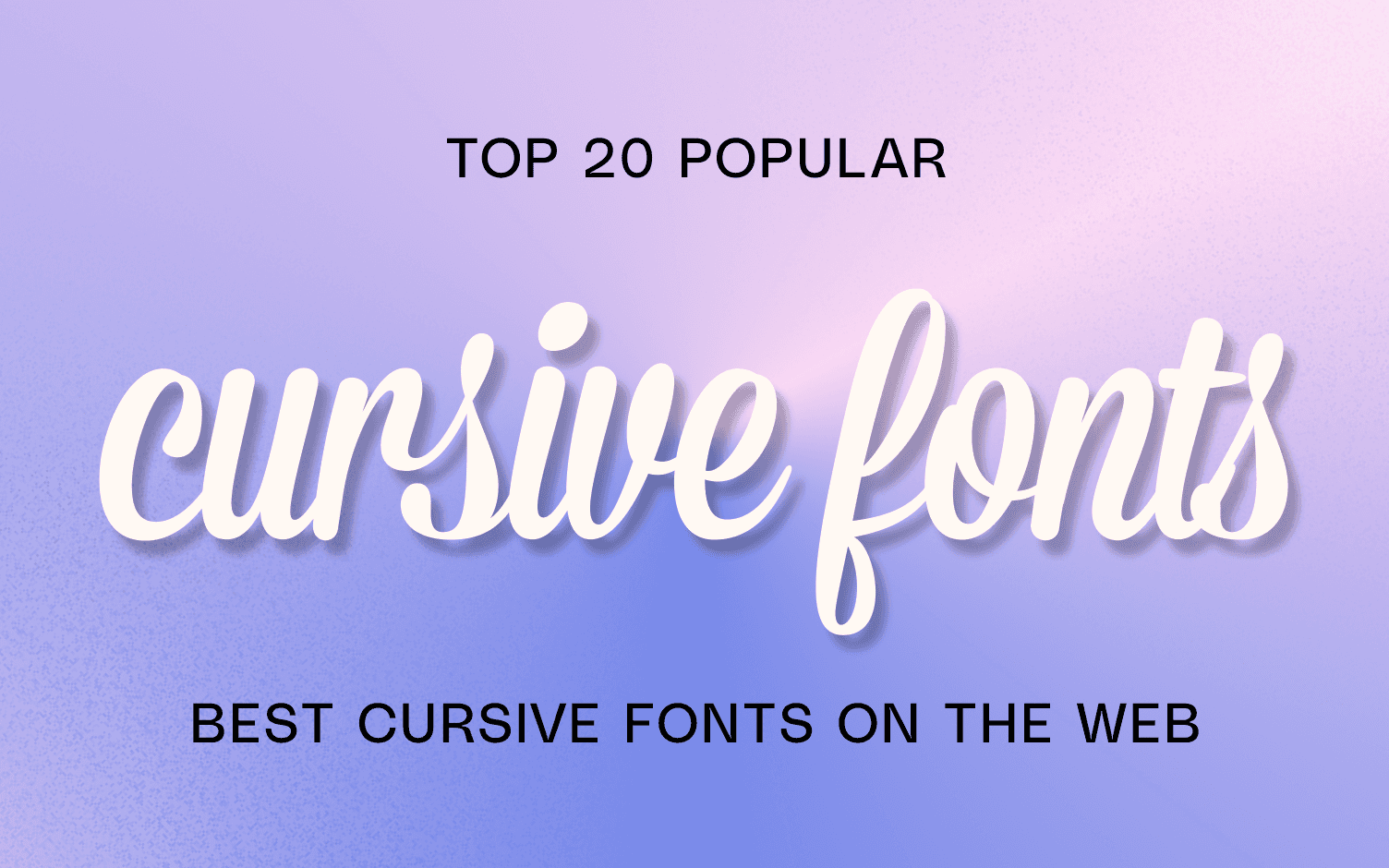
You might be considering using some of beautiful cursive fonts and typography for your design or other purposes; whatever got you on this website, to solve the purpose thereof, here are some of the most popular cursive font names for you to pick from-
1. Mission Script
This beautiful cursive font calligraphy with a charm was created by James T. Edmondson and is marked by the subtle brushstrokes that are suited for projects or UI with delicate traits.
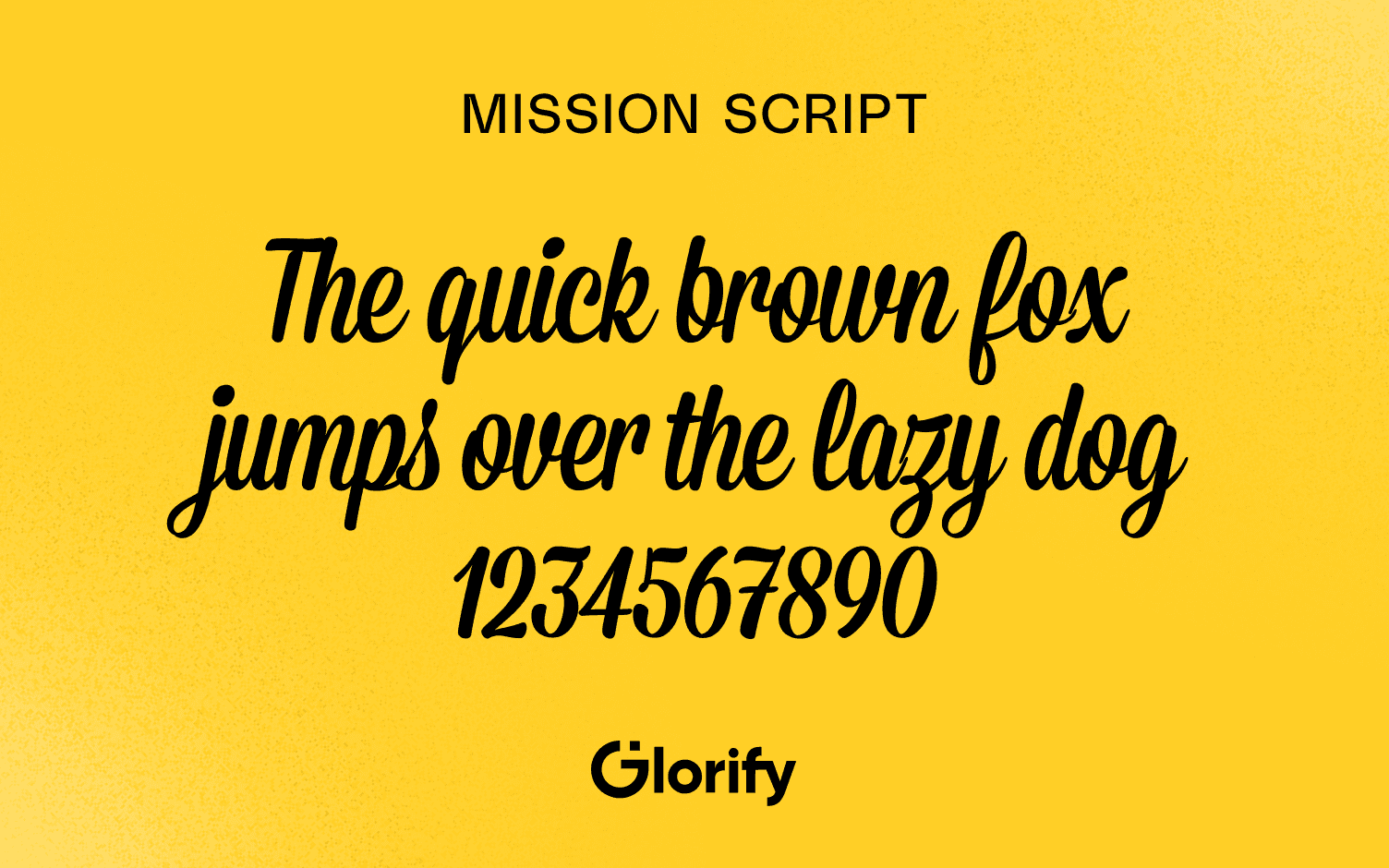
2. Thirsty Rough
As the name suggests, this popular cursive font is marked by a roughness that is a bit brutality unexpected in the fonts. It has a nature of an elegant appeal spiced up with classic letterpress printing.
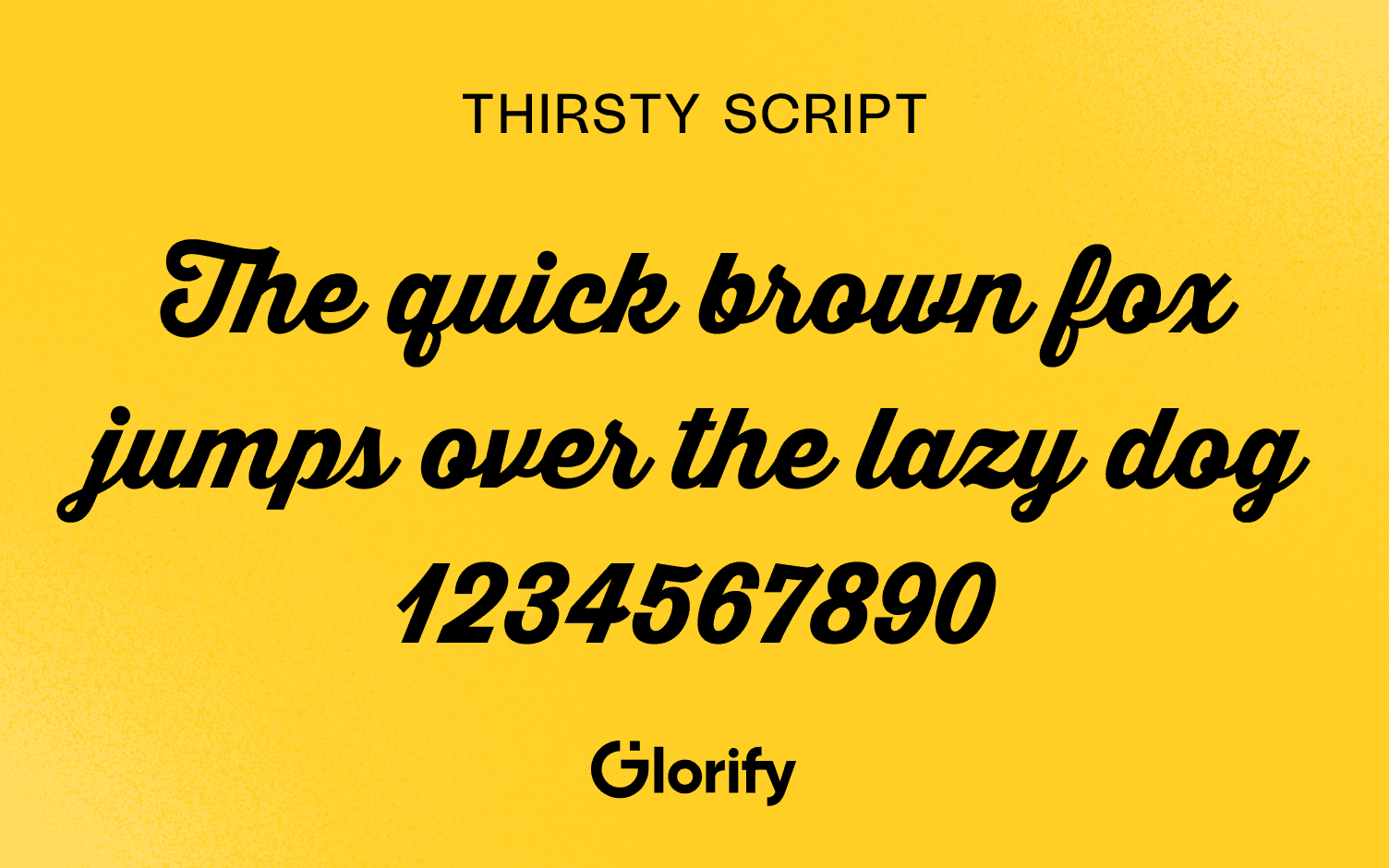
3. Bombshell Pro
The Bombshell Pro has an elegant look with its key feature of a pretty cursive font that connects adding a lovely twist to its characters.
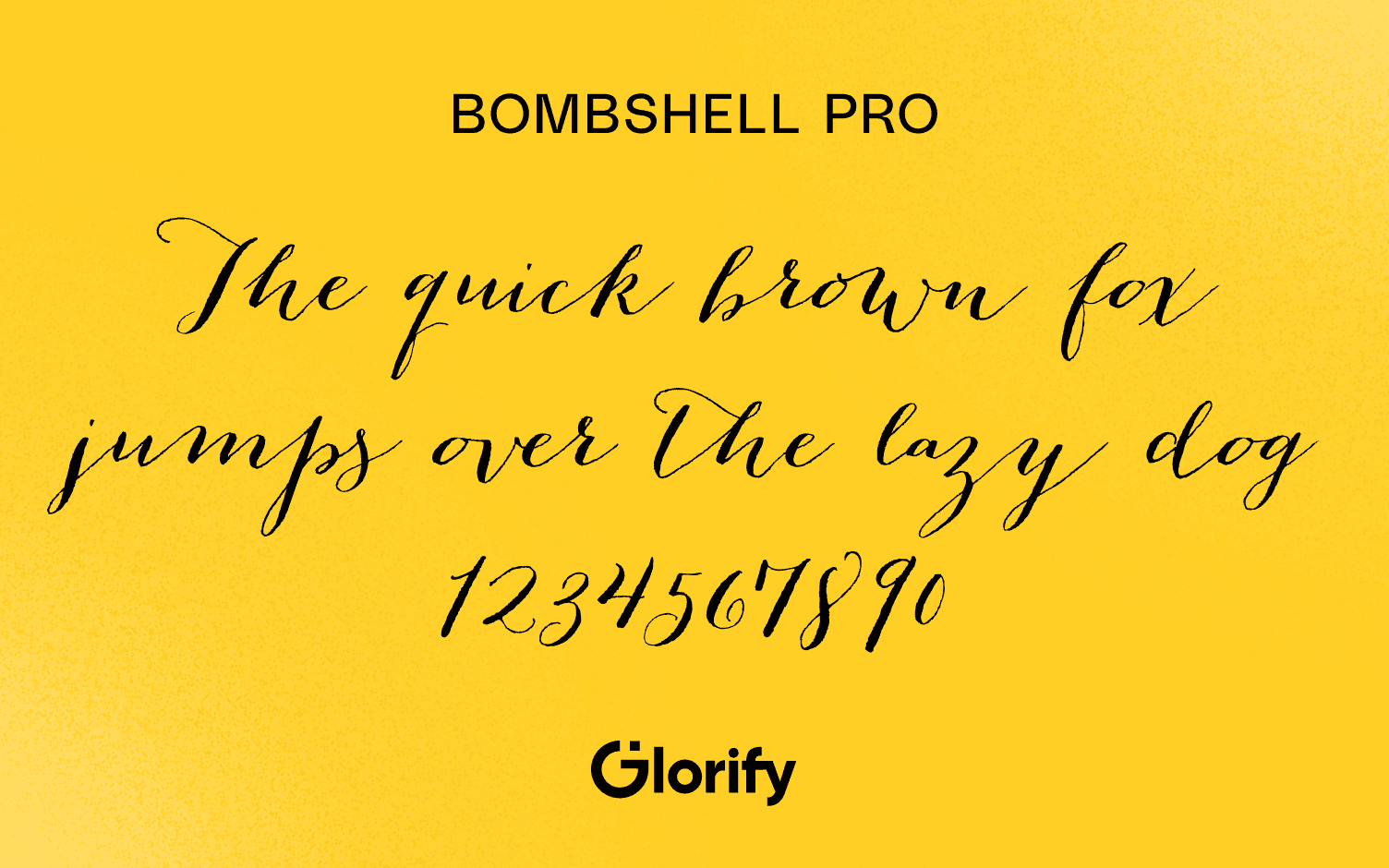
4. Thirsty Script
Another popular, top cursive font, the thirsty script gets elegant and subtle from curvy lines with smooth edges and its round shapes. It is a bold weight that looks good and skillfully blends with the typefaces creating a harmonious mixture of retro and modernity.
5. Aphrodite Slim
This widely used cursive font for web has an appeal of the ancient cultivated beauty reproduced with ultra-narrow lines with almost fragile shapes that cover over 1000 glyphs with a ton of decorative characters. The ligatures not only in English but in French, German, and Spanish.
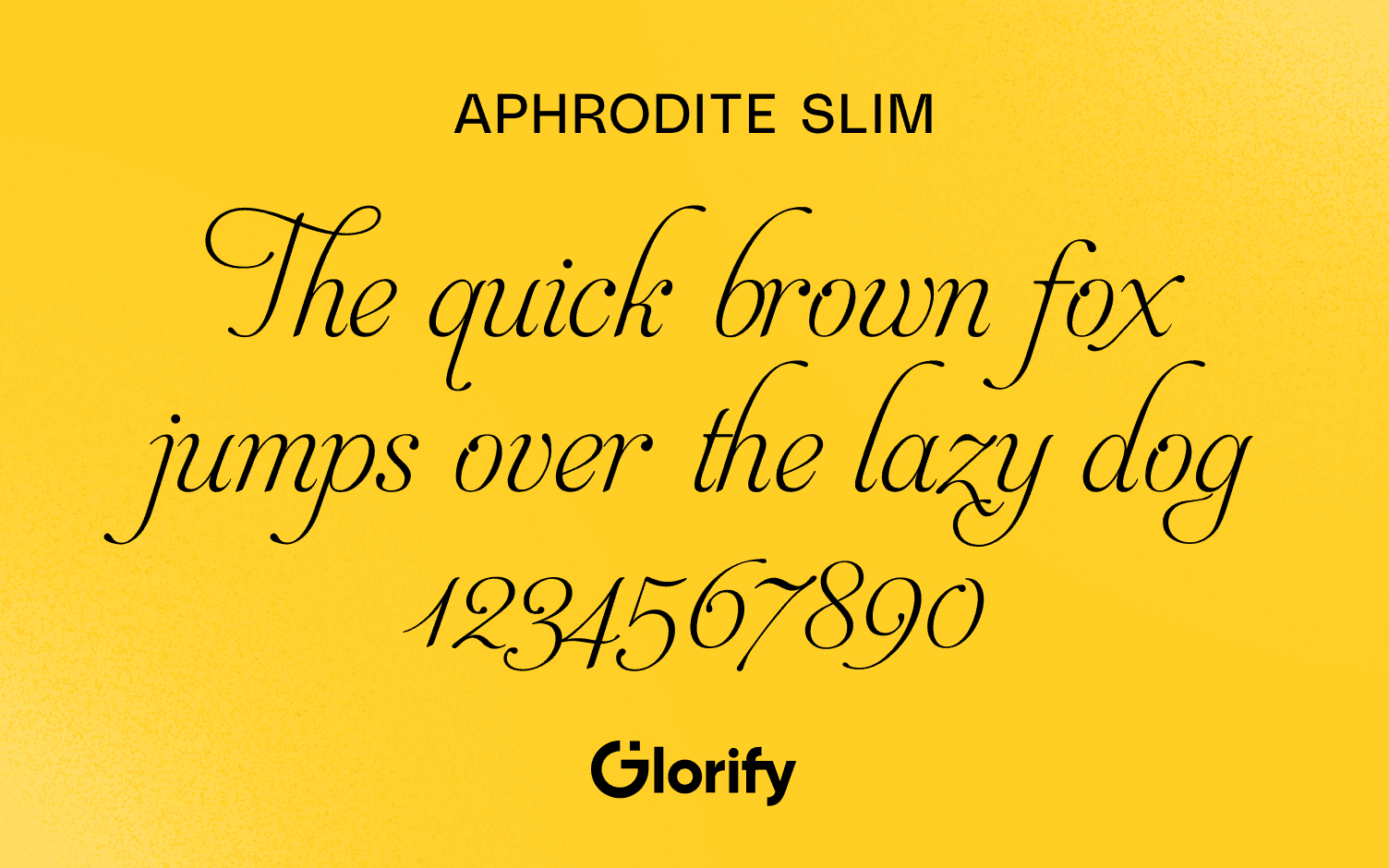
6. Carolyna Pro Black
This type of cursive font has a graceful nature and a positive mood with long curves and swirls that looks whimsical and is easy to perceive taken into account the readability. You can find about 1000 characters that are plenty in terms of the foreign letters and the glyphs.
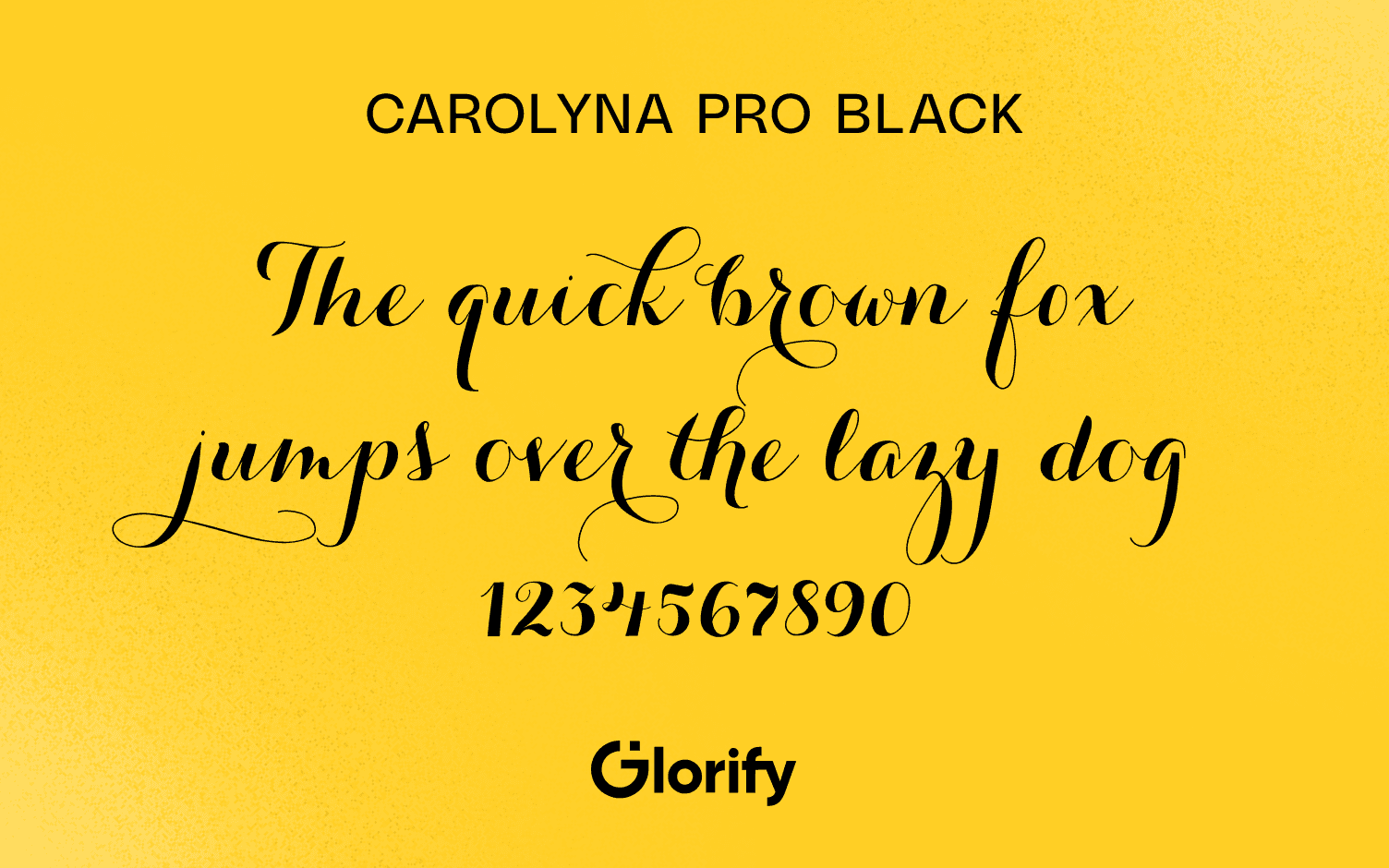
7. Hipster Script Pro
It is a skillful, modern, and retro-style beautiful cursive font that produces a top-notch typeface reflecting a contemporary subculture defined by capably faked brush strokes.
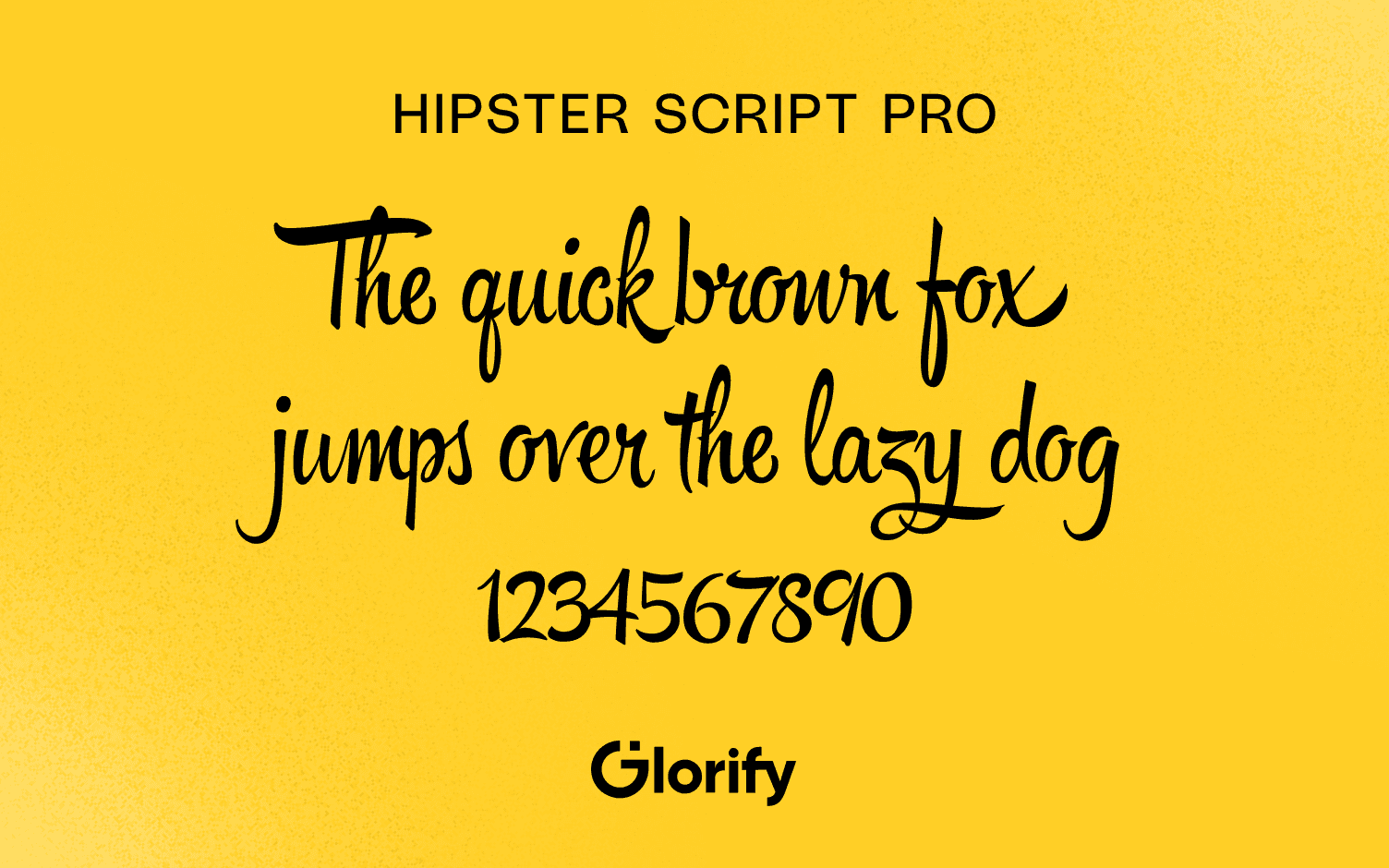
8. Jacques & Gilles
This cursive alphabet font has a certain personality in uppercase and lowercase and is slightly curved which reminds doodles and exudes an image of elegance. It features more than 300 glyphs that cover ordinals, Roman numerals, and terminal letters.
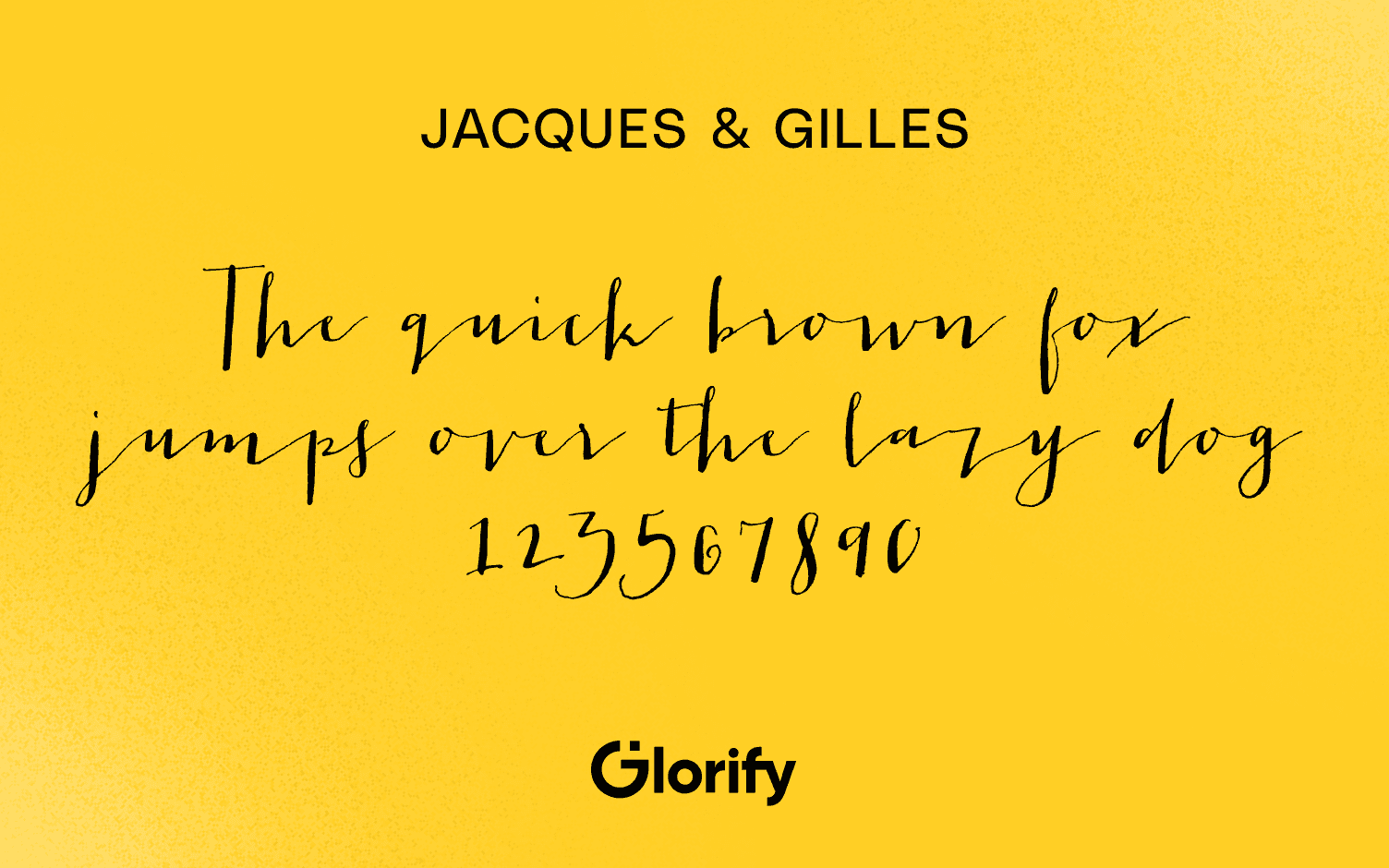
9. Belluccia
Bellucia, one of the all-time best cursive fonts, has a subtle Italian charisma that implies two versions: regular slick and smooth bold. Belluccia comprises ligatures, swashes, old-style figures, contextual alternates, different punctuation marks, and stylistic alternates.
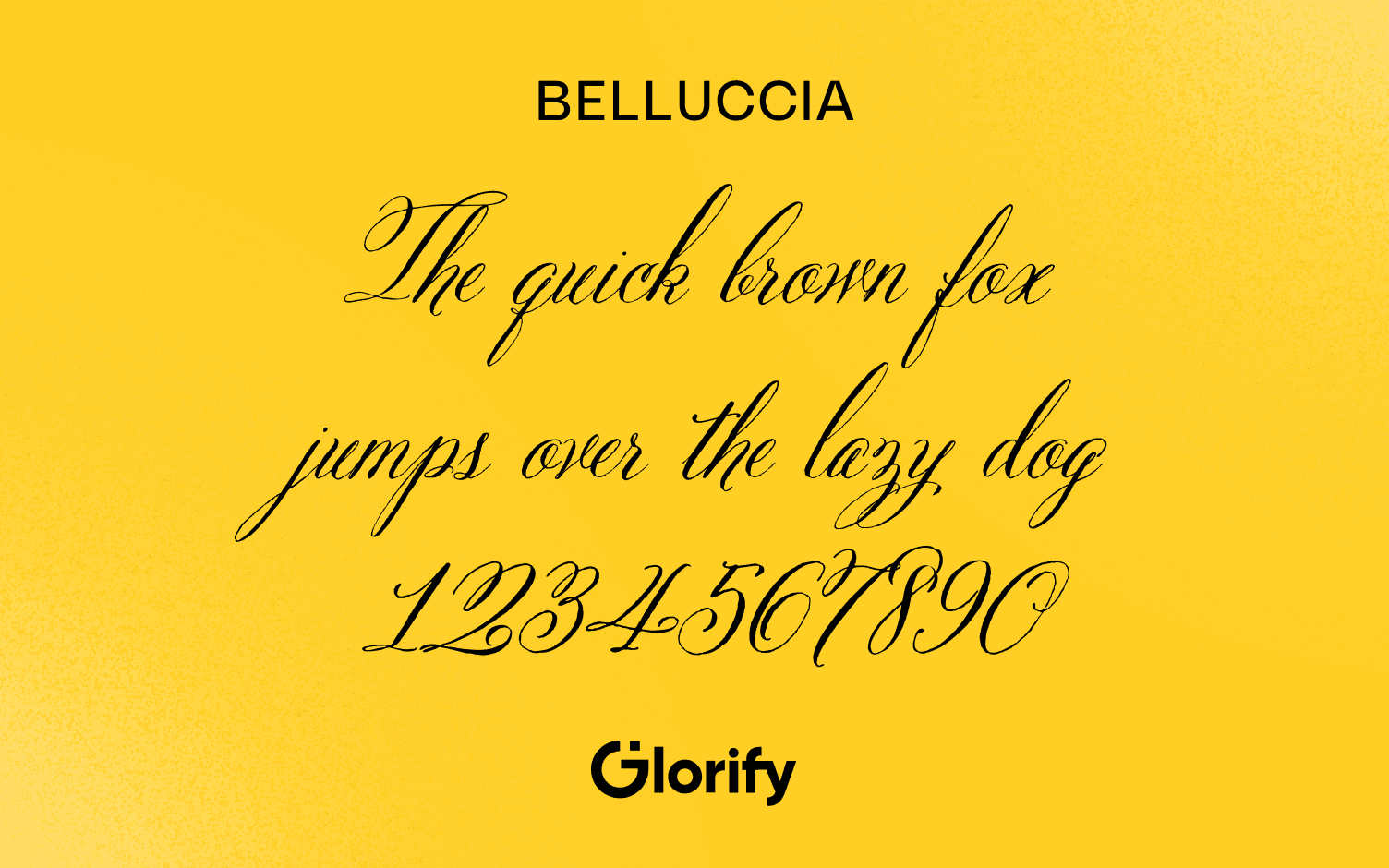
10. Burgues Script
This Script has inspired the 19th-century American calligrapher spruced up with swirls and subtle decorative strokes that are incorporated into the type of energetic Spanish soul.
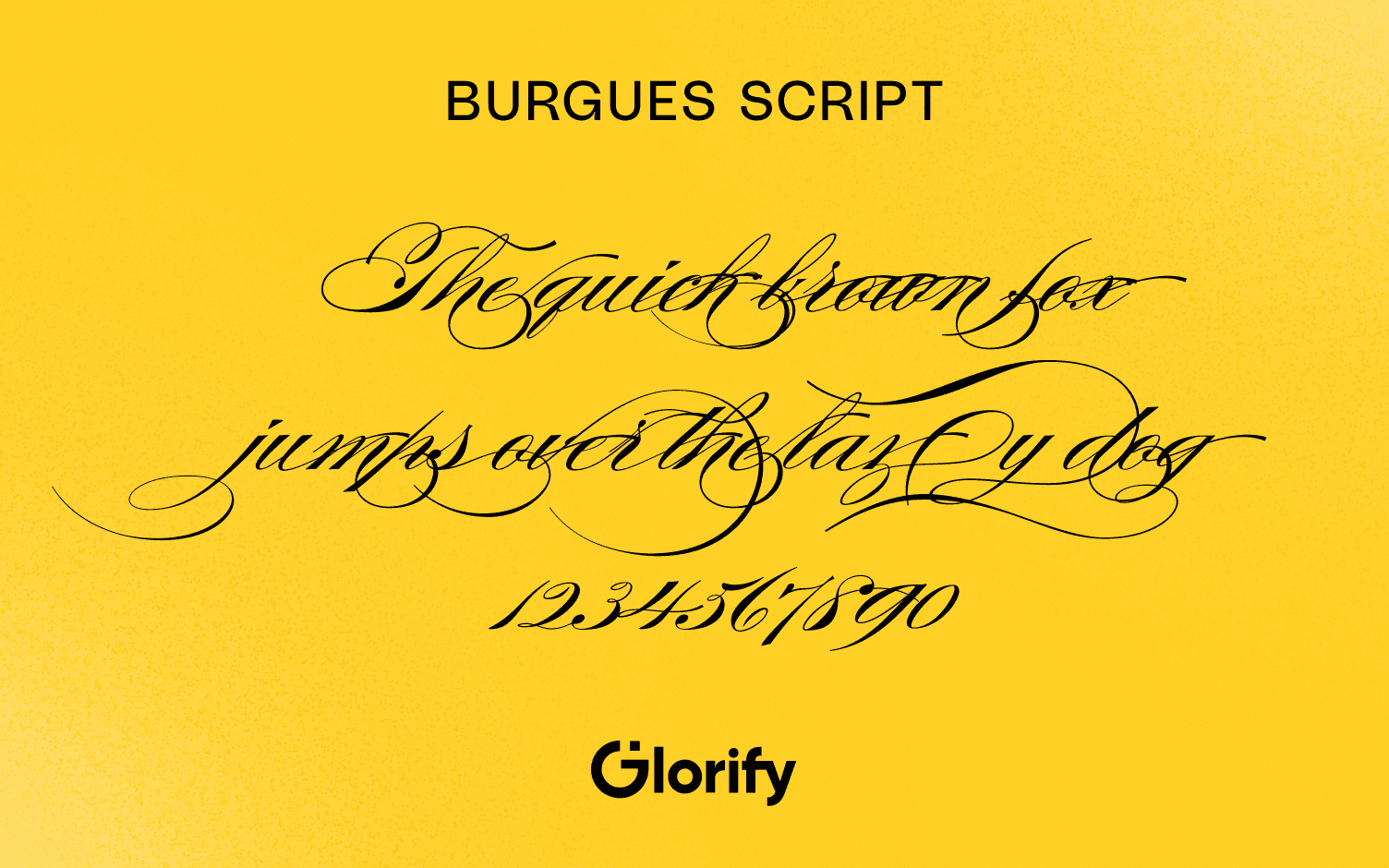
11. Insolente
This cursive font is ultra-narrow and an elegant typeface that requires a proper background with a modern French vibe. Insolente is fully fashionable and versatile with a glyph coverage that leaves much to be desired. The five licensing options allow you to use various devices besides the sibling with artistic and long connections that works wonders.
12. Peoni Pro
Another popular cursive font for the web, peony Pro is a perfect match that has a delicate, gentle nature, and features more than 1200 characters. These characters include the standard ligatures; swashes, and contextual swashes; stylized words such as Roman numerals or ordinals; tabular numbers; old fashioned style numbers; and stylistic sets with 6 different Caps styles.
13. Dom Loves Mary
This cursive font typeface includes forms that complement and recreate a harmonious atmosphere. Dom Loves Mary has a classy vintage feel with various stationary projects mainly on wedding invitations.
14. Samantha Script
SS cursive font or Samantha Script is claimed to have a measured rhythm appropriate for various headings and titles. It befits all cursive fonts that are dignified, delicate, and refined. The typeface has more than a thousand alternates with swash characters that come in handy in different tasks with a bonus of 60 ornaments and 46 catchwords with lining numerals and old-style numerals.
2. What is the opposite of cursive?
The opposite cursive font handwriting is called print or block script.
3. Are cursive font typefaces dying?
There are very small proportions of adults that use cursive in their day-to-day writing. However, researchers have indicated students learn some form of penmanship alongside the digital. Stating the dying form of cursive is perhaps seen as rather evolved into the digital world from the physicality of its form.